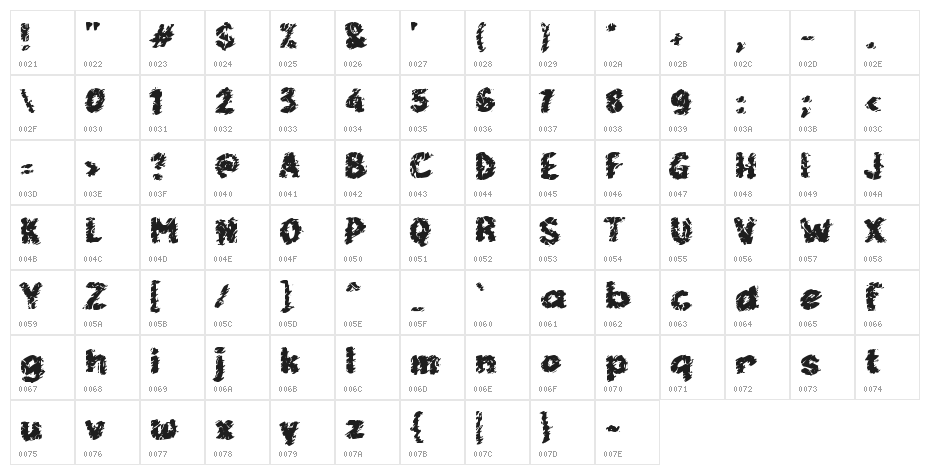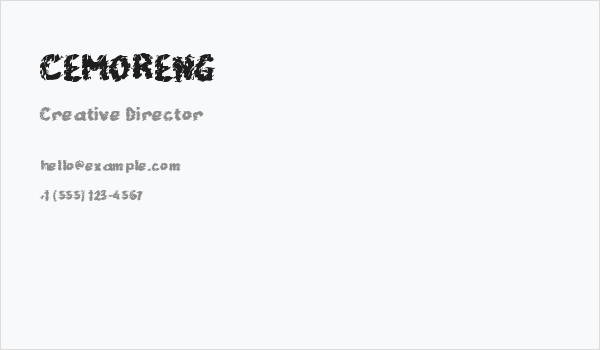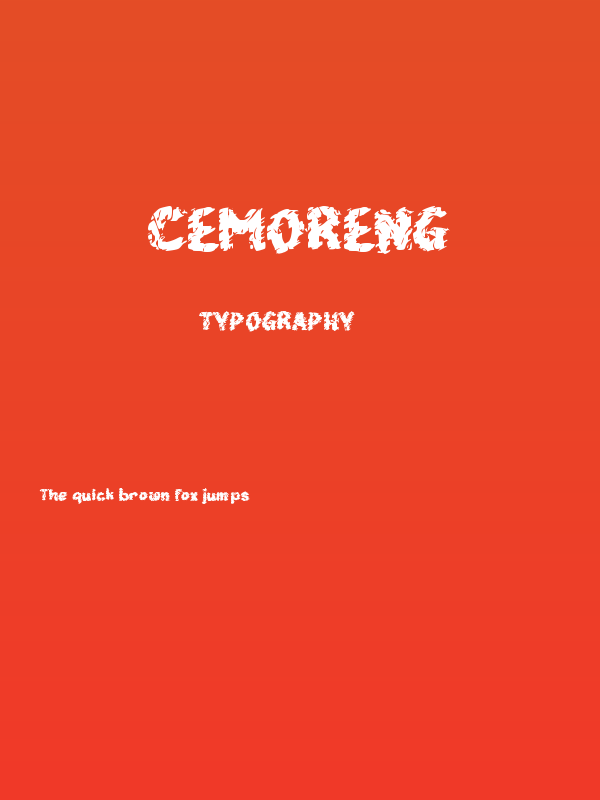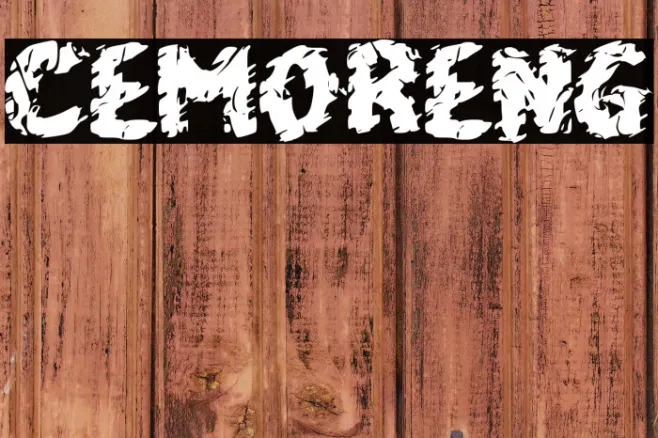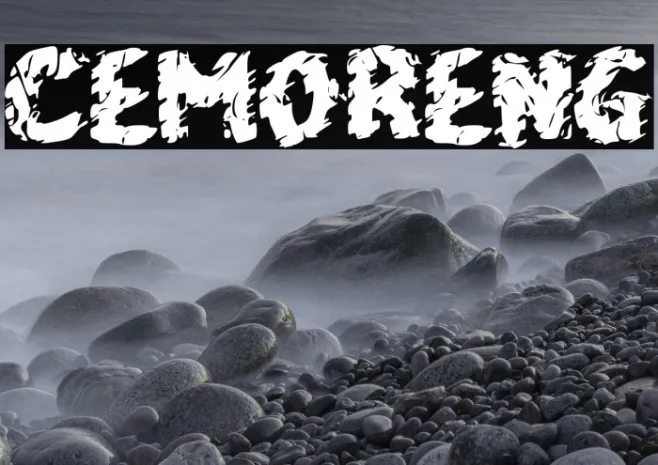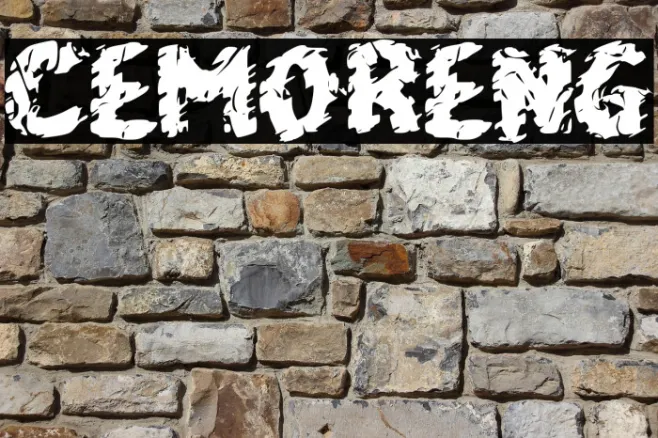
CEMORENG Font
CEMORENG Description
This font features a bold and dynamic design with a distressed, grunge-like texture. The characters are heavily stylized, with irregular edges and a sense of movement, giving it an energetic and chaotic appearance. The uppercase and lowercase letters maintain a consistent style, while the numbers and special characters follow the same rugged aesthetic. This font is ideal for projects that require a bold statement or a rebellious, edgy look.